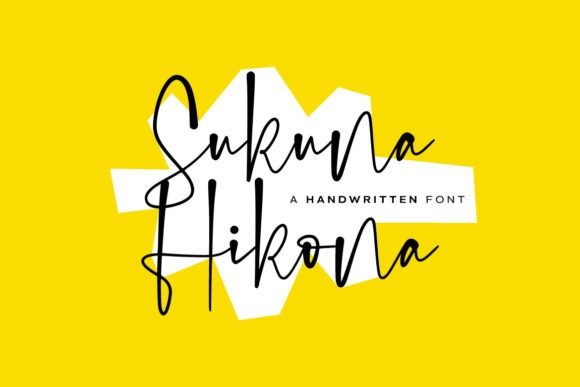
Sukuna Hikona Font
Sukuna Hikona is a sweet and delicate script font. Dainty and joyful, this font will be ideal for writing wedding invitations, cards, quotes, or any other design that may need a personalized touch!